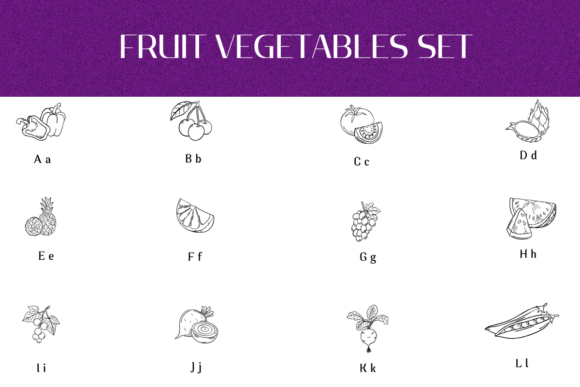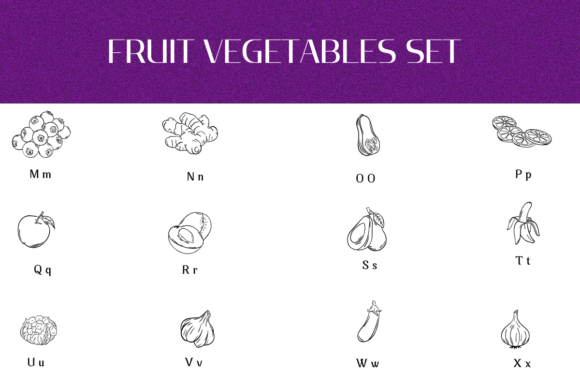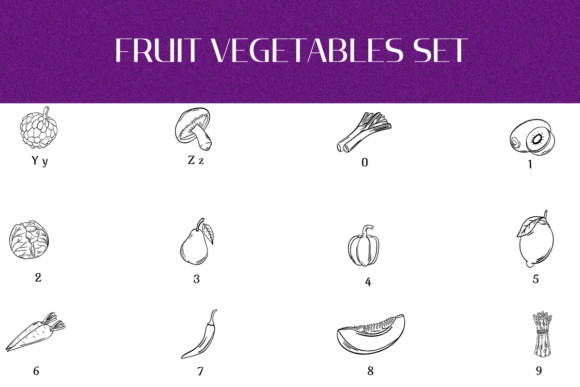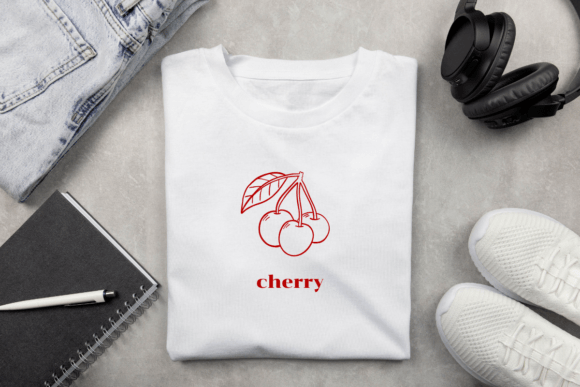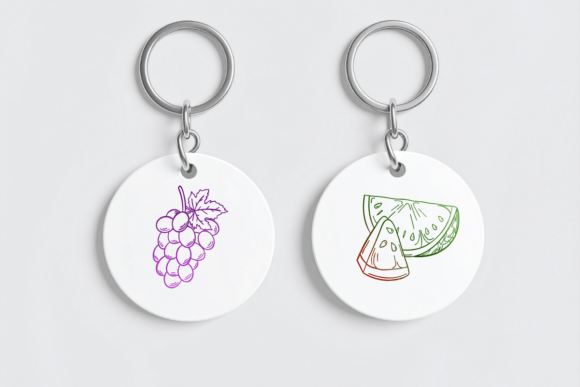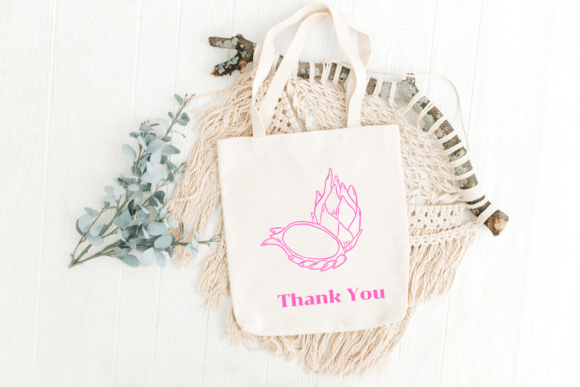
Introduction to Fruit Vegetables Set Font
Fruit Vegetables Set: A Dingbats Font Elevate your culinary and lifestyle designs with the Fruit Vegetables Set, a comprehensive dingbats font collection designed for instant organic charm.
This set features a bountiful variety of professionally illustrated line-art icons, capturing the intricate details of natureโs harvestโfrom the textured skin of a pineapple and the delicate seeds of a dragon fruit to the crisp layers of an onion and the vibrant clusters of blueberries The clean, black-and-white monolinear aesthetic makes these illustrations exceptionally versatile for farm-to-table branding, artisanal menu layouts, healthy living infographics, and eco-friendly packaging.
Key Features of Fruit Vegetables Set Font
Why Choose Fruit Vegetables Set Font?
Fruit Vegetables Set Font offers exceptional quality and versatility, making it a valuable addition to your design toolkit. Whether you’re creating for personal projects or commercial use, Fruit Vegetables Set Font delivers professional results.